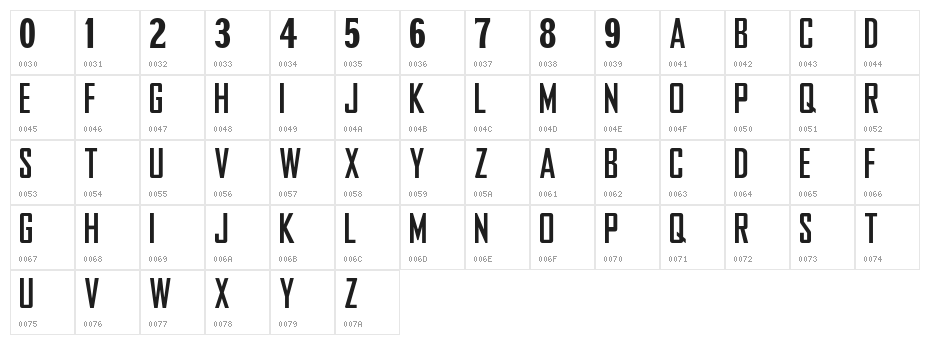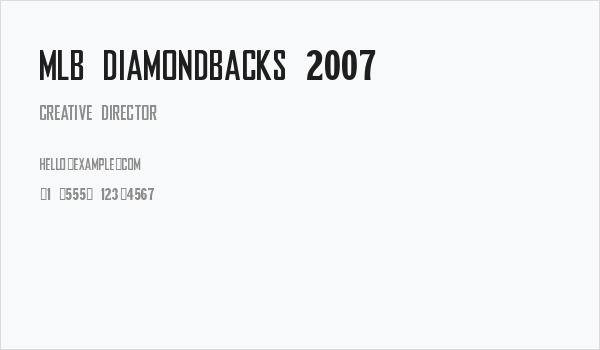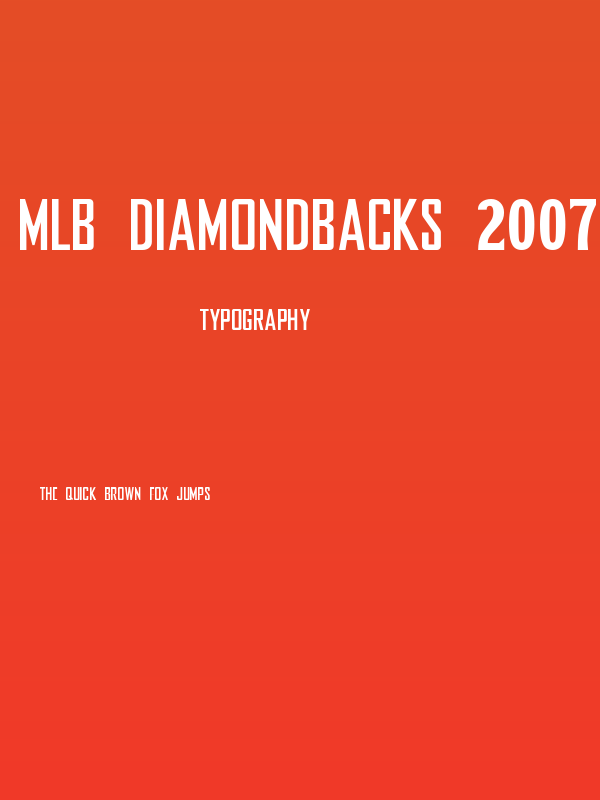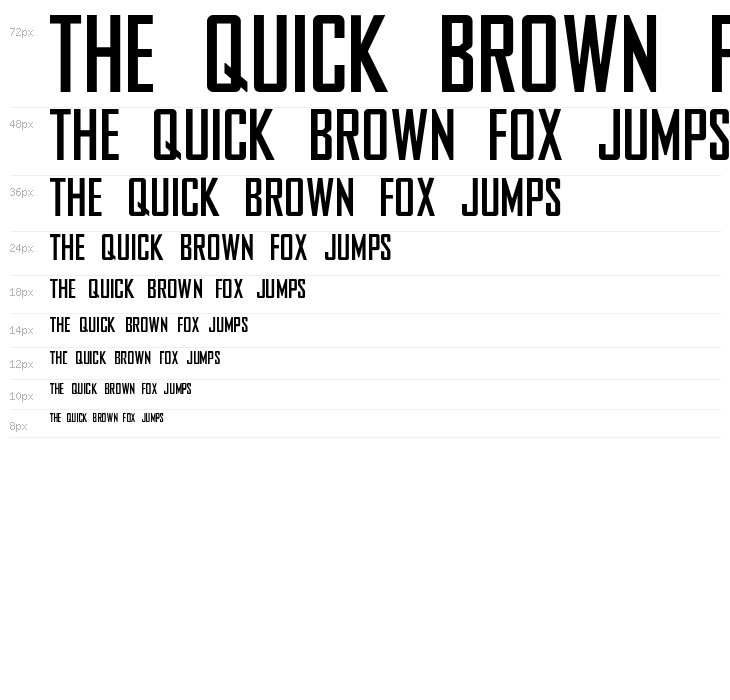
MLB Diamondbacks 2007 Font
MLB Diamondbacks 2007 Description
This font features a bold and impactful design with strong geometric shapes and clean lines. The uppercase letters are tall and narrow, creating a sense of height and authority. The numbers are equally bold, maintaining the font's consistent weight and style. The absence of lowercase letters and special characters suggests a focus on simplicity and clarity. The overall appearance is modern and assertive, making it suitable for contexts where a strong visual presence is required.